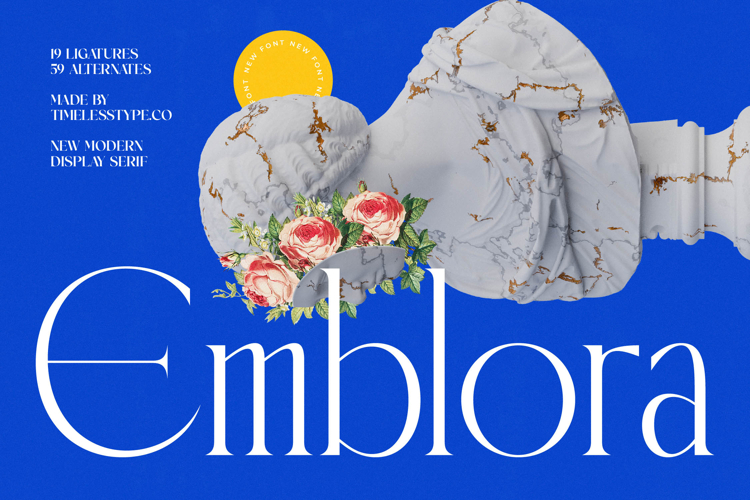
Emblora - Modern Display Serif
Elevate your designs with unparalleled sophistication. Introducing Font Emblora - Modern Display Serif Serif Display, a masterfully crafted high-contrast display serif that blends timeless elegance with modern distinction. Its refined strokes and exquisite serifs are designed to capture attention and convey a sense of premium quality, making every word resonate.
Unleash a world of creative possibilities with its rich typographic features. Boasting 19 ligatures and an impressive 59 alternates, Font Emblora - Modern Display Serif Serif Display offers exceptional customization for your projects. These extensive options empower designers to craft truly unique headlines, distinctive logos, and compelling branding that exudes a bespoke and artistic touch.
Reach a global audience with effortless grace. With its extensive multilingual support, Font Emblora - Modern Display Serif Serif Display adapts seamlessly across global markets, making it incredibly versatile for international projects. This commitment to global adaptability ensures your message maintains its sophistication and readability across diverse linguistic landscapes.
Perfectly suited for projects demanding distinction, Font Emblora - Modern Display Serif Serif Display is the ultimate choice for luxury branding, high-end packaging, editorial design, fashion magazines, and prestigious advertising campaigns. It is ideal for designers aiming to infuse their work with prestige, glamour, and an unmistakable touch of artistry.